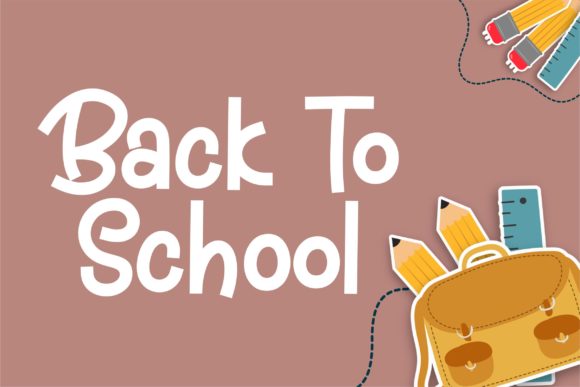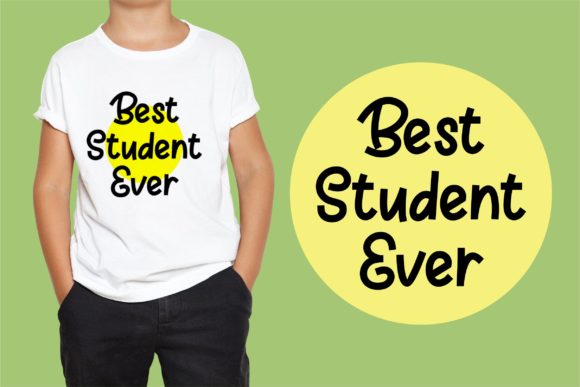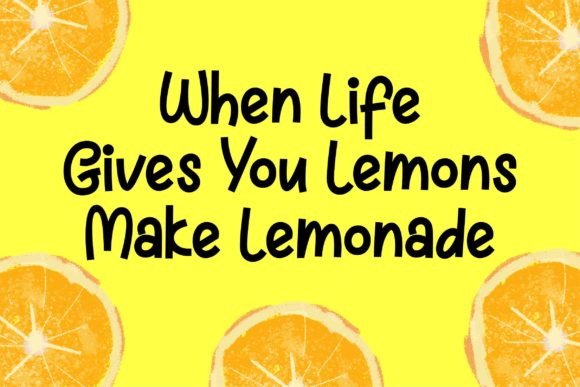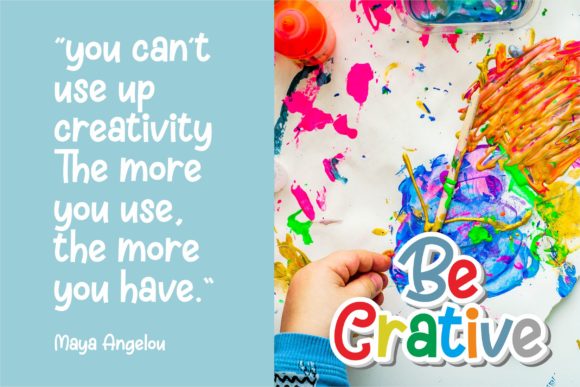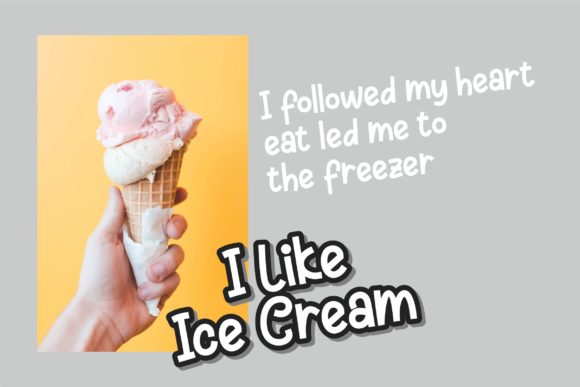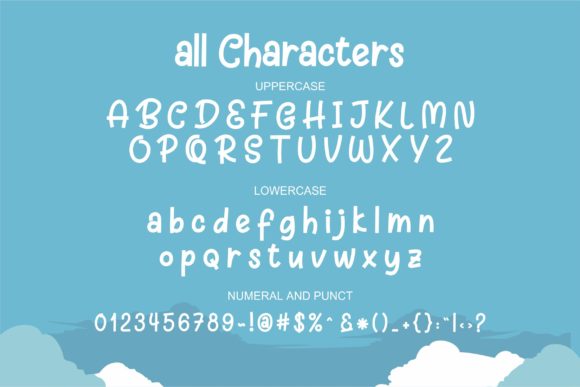
The Sweet Spot: Discovering Charly Dreams Font
I’ll never forget the moment I stumbled upon Charly Dreams Font while working on a whimsical craft project for a client. I was on a mission to find the perfect display font that would bring a touch of magic to her handmade party invitations. As I scrolled through my font library, Charly Dreams caught my eye with its vibrant colors and friendly vibe. It was love at first sight! ✨ In this article, I’ll share my experience with Charly Dreams, its features, and how to make the most of this beautiful font.
An Honest Review of Charly Dreams Font
- ✅ Sweet and Colorful Design: Charly Dreams is a stunning display font that adds a pop of color to any design project.
- ✨ Friendly and Whimsical: The font’s playful vibe makes it perfect for creative projects, such as party invitations, branding, and social media graphics.
- 🌈 Highly Versatile: Charly Dreams can be used for a wide range of projects, from digital designs to print materials.
While Charly Dreams is an amazing font, there are a few things to keep in mind: 🤔
- ⚠️ Limited Use in Small Sizes: Due to its intricate design, Charly Dreams may not be the best choice for small font sizes or body text.
- ⚠️ Color Limitations: While the font comes in a range of colors, it may not be suitable for projects that require a specific brand color or a large number of color variations.
Charly Dreams Font was designed with the intention of creating a friendly and approachable display font. The designer aimed to craft a font that would inspire creativity and bring a touch of magic to any design project. With its vibrant colors and playful vibe, Charly Dreams is perfect for designers, crafters, and creative hobbyists looking to add a personal touch to their work.